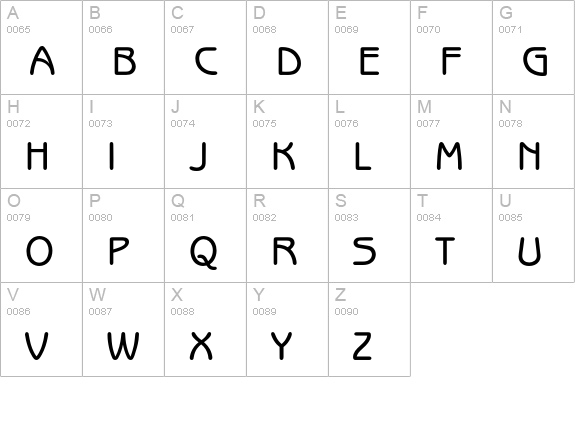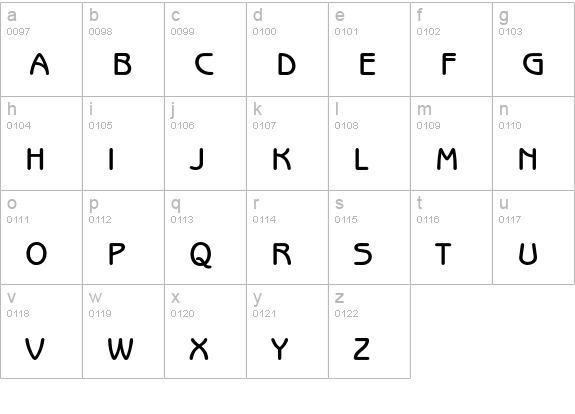
Benguiat Gothic* Expert Medium SC Font Details
Benguiat Gothic* Expert Medium SC is a balanced, medium-weight variant in the Benguiat typeface family \xE2\x80\x94 well suited to sub-headlines, navigation, and balanced editorial work.
Benguiat Gothic* Expert Medium SC font is a versatile and modern typeface that exudes sophistication and professionalism. Its sleek and elegant design makes it perfect for a wide range of design projects, from branding to editorial design. The font features clean lines and a balanced weight, making it easy to read and eye-catching. What sets Benguiat Gothic* Expert Medium SC font apart is its unique style and character, which adds a touch of personality to any design. Whether you're creating a logo, poster, or website, this font is sure to make a statement. And the best part? Benguiat Gothic* Expert Medium SC font is available for free download at FontsMarket.com. So you can easily access this high-quality font and use it in your projects without any cost. Don't miss out on the opportunity to enhance your designs with this stunning typeface!